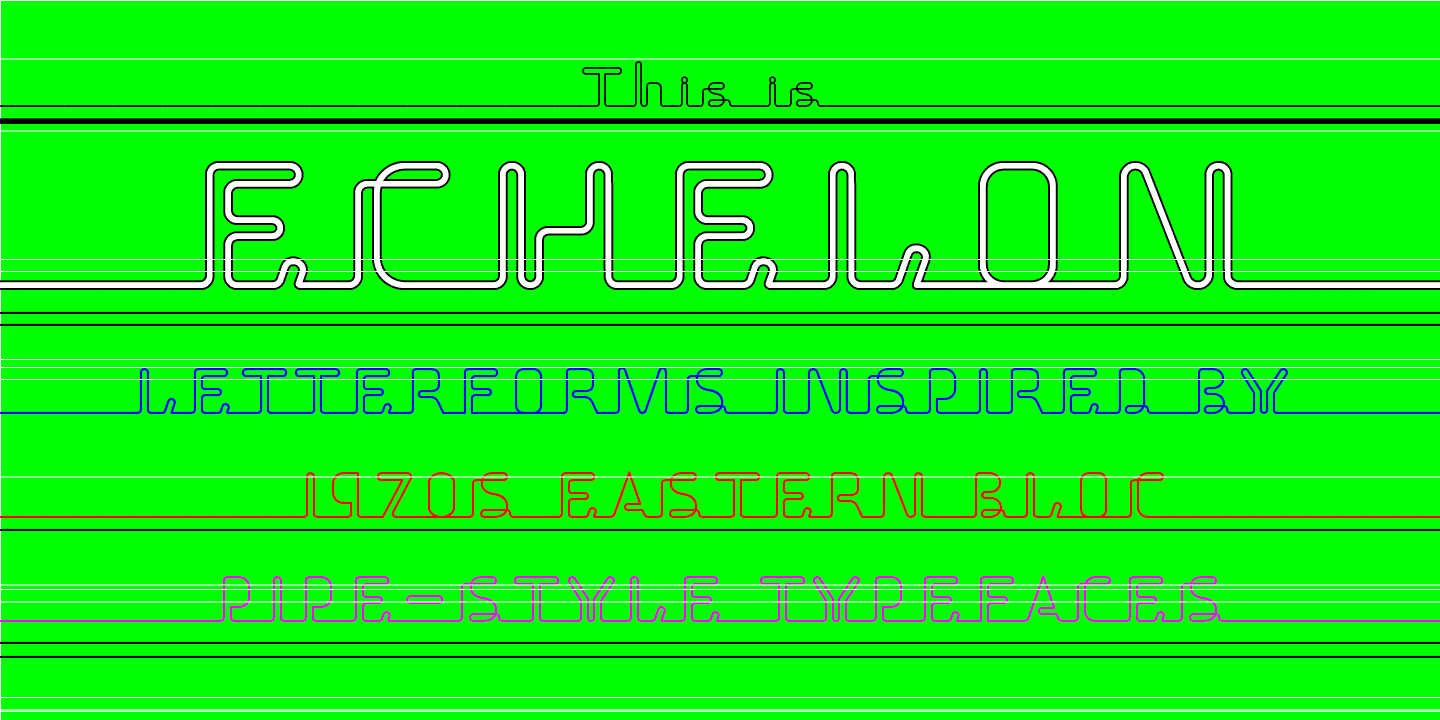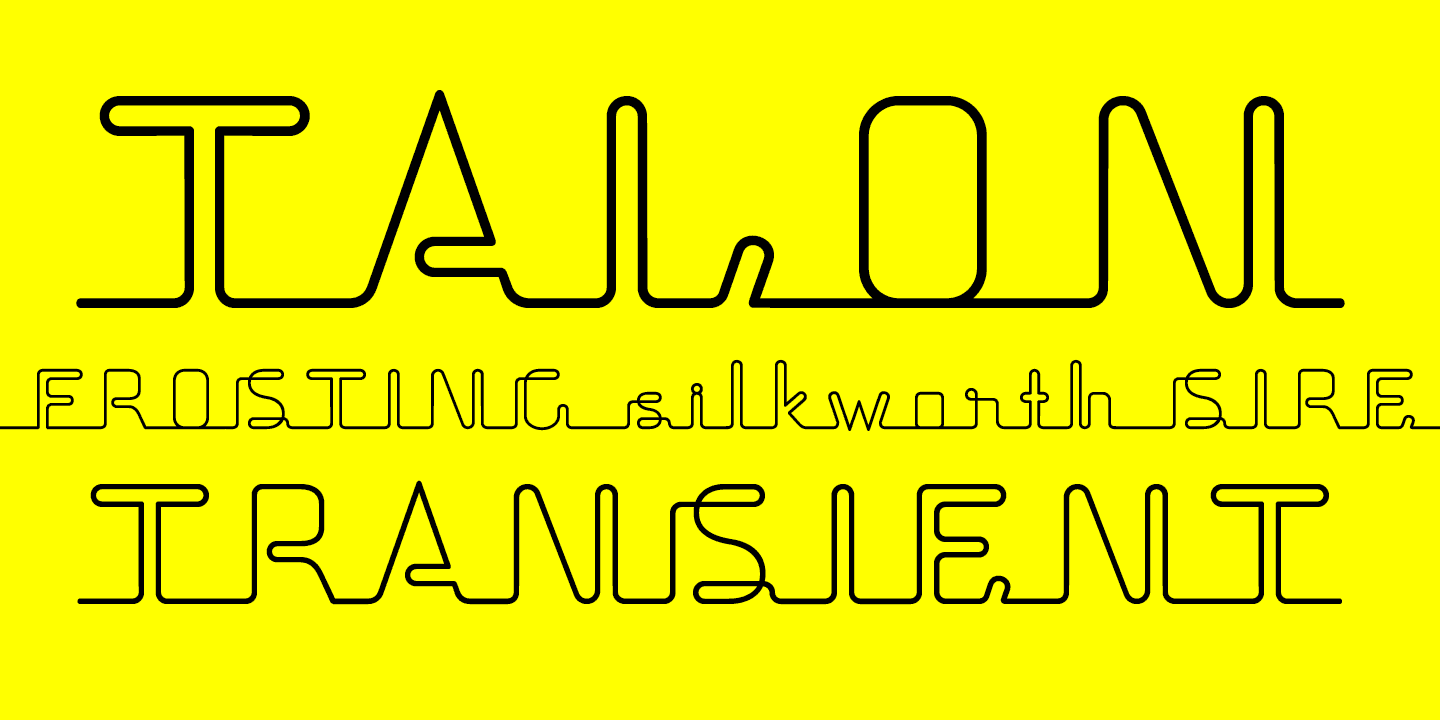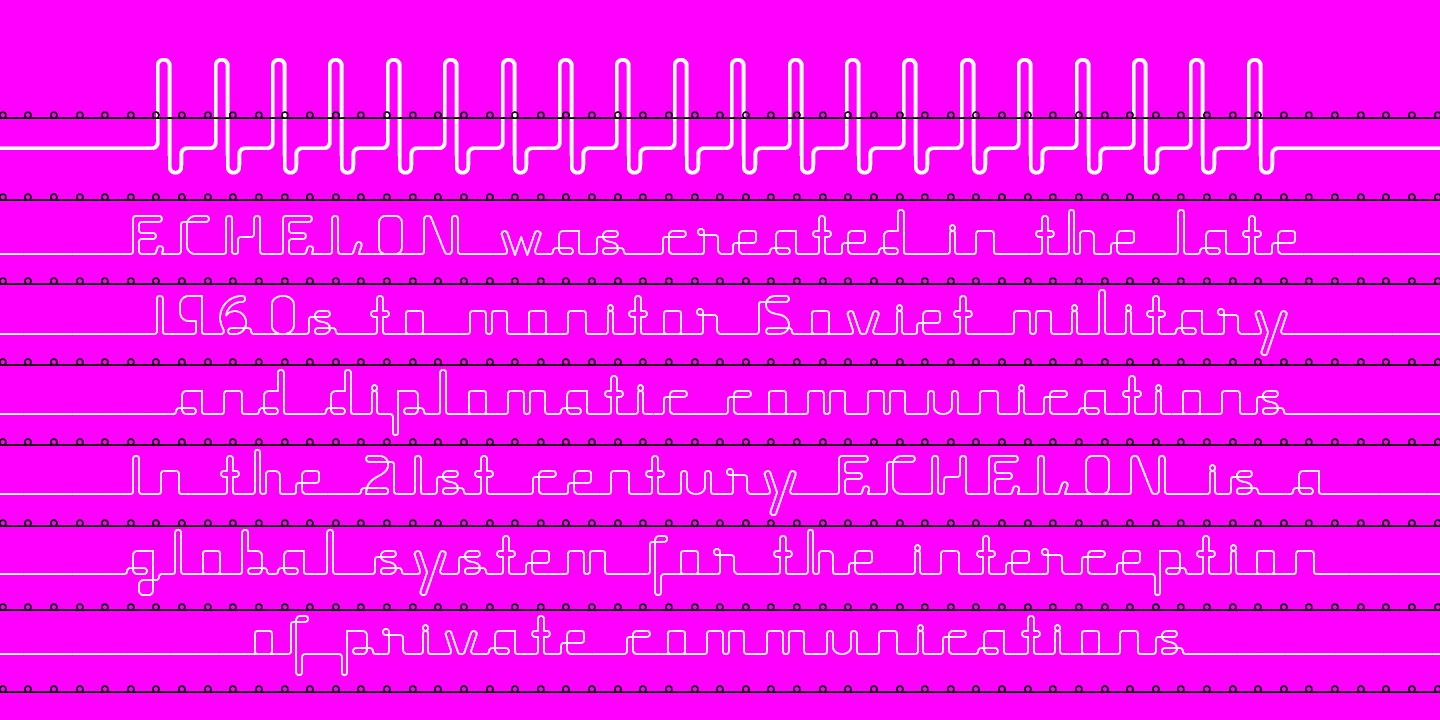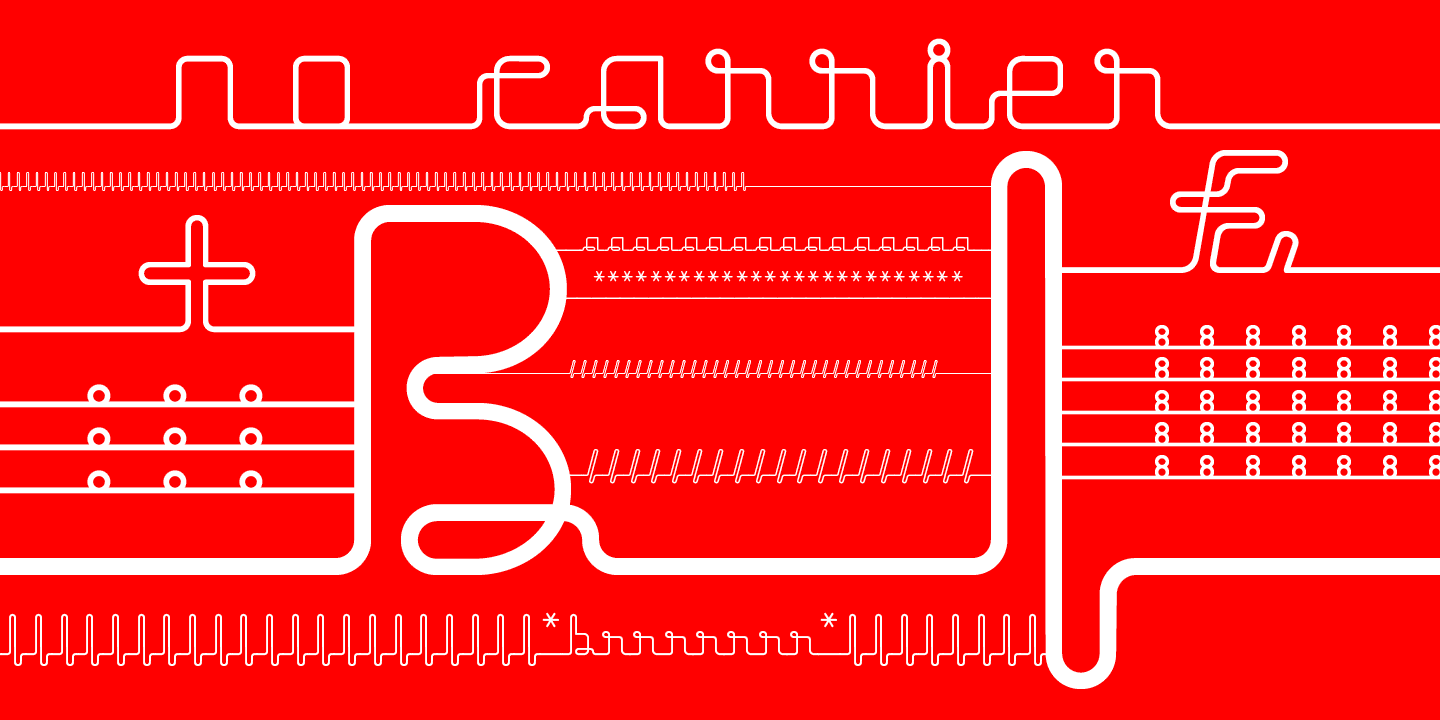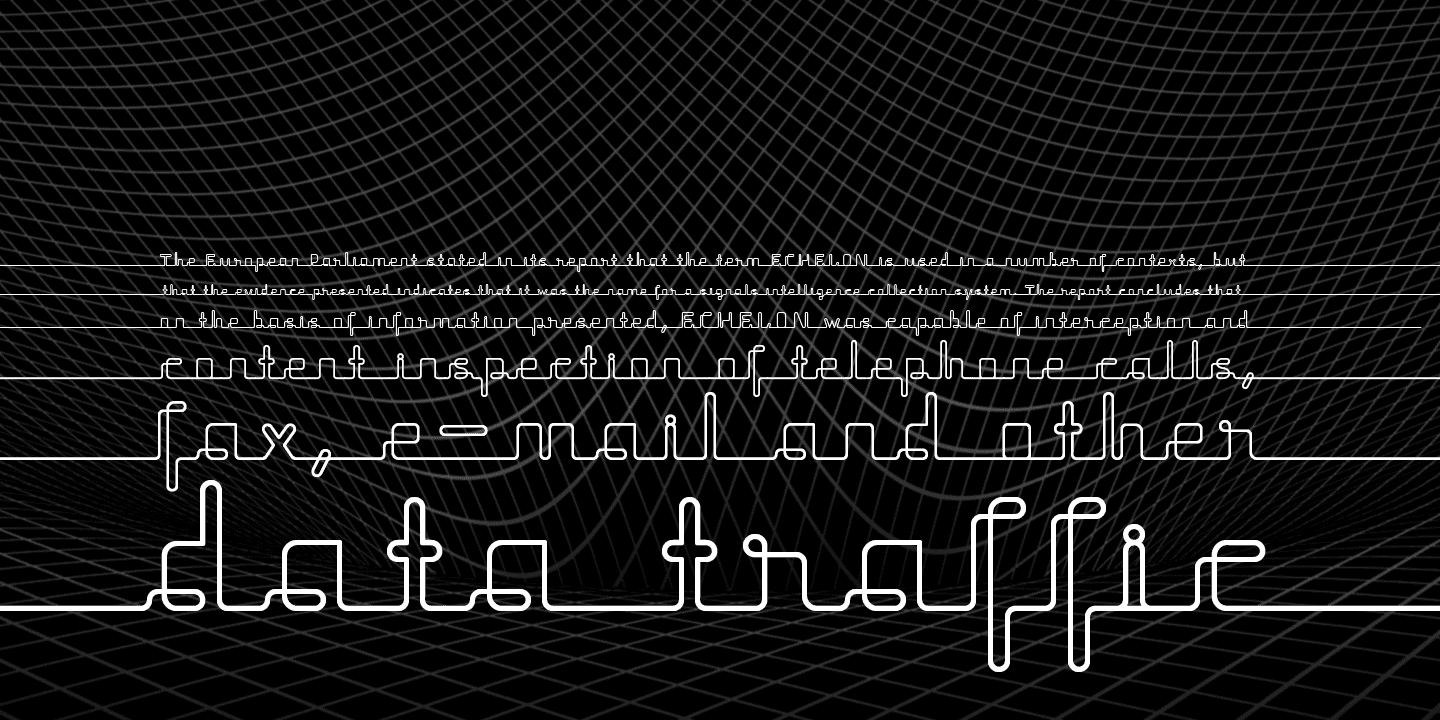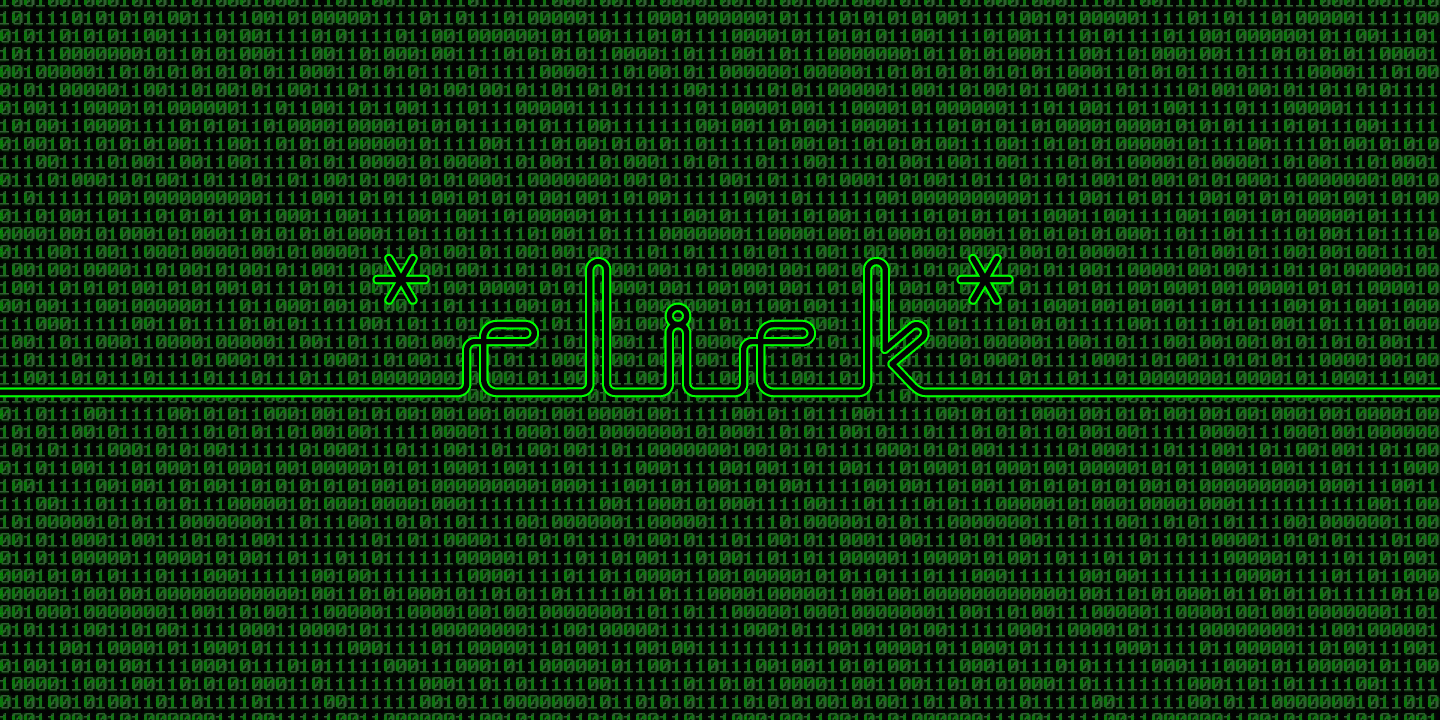
Echelon (1 font)
From Barnbrook Fonts
The parallels between the surveillance practices of the Soviet Union and those of today’s Western governments informed the naming of this typeface. Echelon is the codename for a massive international surveillance system that collects and processes data from communications satellites. It can eavesdrop on telecoms and computer systems, it can track bank accounts. It can record and store information on millions of individuals.